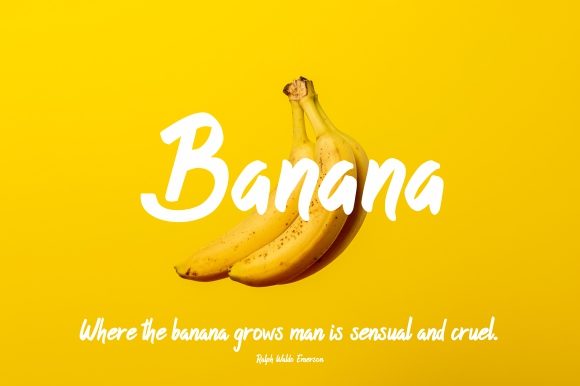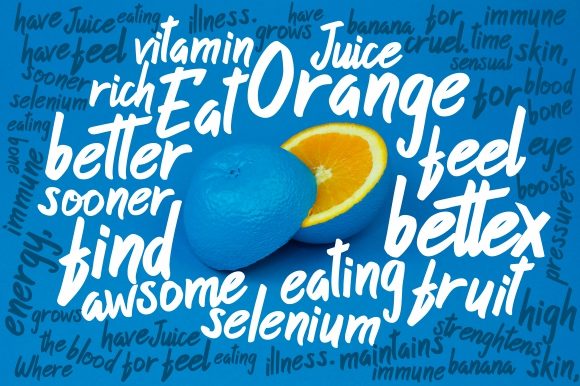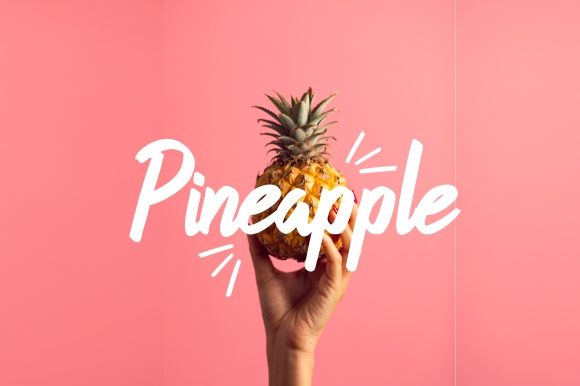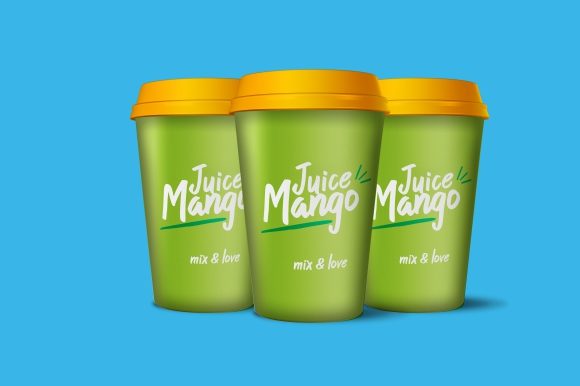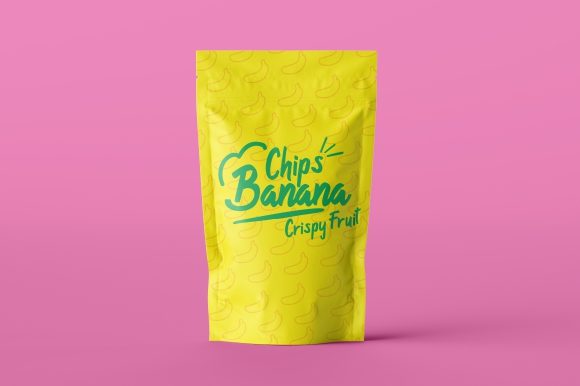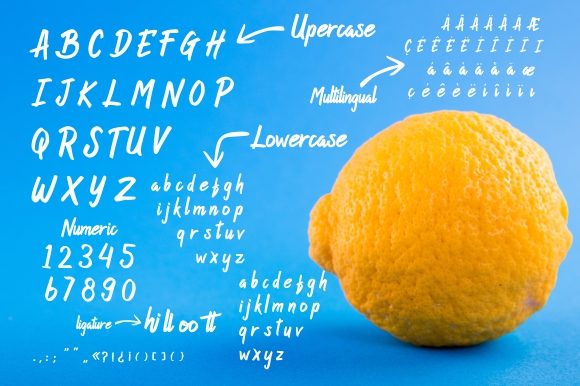
Introducing Butter Pineapple Font: The Fresh and Funky Display Font You Need
Are you tired of using the same old fonts for your creative projects? Look no further than Butter Pineapple Font, a fresh and funky display font that’s sure to make your designs stand out. With its unique blend of authenticity and elegance, this font is perfect for designers and crafters looking to add a touch of charm to their work.
The Story Behind Butter Pineapple Font
Butter Pineapple Font is a carefully crafted font that’s designed to radiate charm and personality. Its creators wanted to create a font that would feel authentic and genuine, yet also elegant and sophisticated. The result is a font that’s perfect for a wide range of creative projects, from branding and advertising to packaging and signage.
What Makes Butter Pineapple Font So Special?
So, what sets Butter Pineapple Font apart from other display fonts on the market? Here are just a few things that make it special:
- Unique Character: Butter Pineapple Font has a unique character that’s all its own. Its letters are carefully crafted to be both playful and elegant, making it perfect for designs that need a touch of whimsy.
- Authentic Feel: This font has an authentic feel that’s hard to find in other display fonts. It’s perfect for designers who want to create designs that feel genuine and true to life.
- Elegant and Sophisticated: Despite its playful nature, Butter Pineapple Font is also elegant and sophisticated. It’s perfect for designs that need a touch of class and refinement.
Uses for Butter Pineapple Font
Butter Pineapple Font is a versatile font that can be used for a wide range of creative projects. Here are just a few ideas to get you started:
- Branding and Advertising: Use Butter Pineapple Font to create eye-catching logos, ads, and marketing materials that will grab attention and leave a lasting impression.
- Packaging and Signage: This font is perfect for packaging and signage that needs to stand out on store shelves or in crowded spaces.
- Digital Media: Use Butter Pineapple Font to create engaging social media graphics, blog posts, and other digital content that will capture your audience’s attention.
Tips for Using Butter Pineapple Font
Here are a few tips for using Butter Pineapple Font in your designs:
- Use it as a Display Font: Butter Pineapple Font is designed to be used as a display font, so use it to create eye-catching headlines and titles.
- Experiment with Colors and Textures: This font looks great in a variety of colors and textures, so don’t be afraid to experiment and find the perfect combination for your design.
- Pair it with Other Fonts: Butter Pineapple Font pairs well with a variety of other fonts, so try pairing it with a simpler font to create visual interest.
| Font Name | Butter Pineapple Font |
| Author | EKNOJI |
Butter Pineapple Font is a fresh and funky display font that’s sure to add a touch of charm to your creative projects. With its unique character, authentic feel, and elegant sophistication, this font is perfect for designers and crafters looking to create standout designs. Whether you’re working on branding and advertising, packaging and signage, or digital media, Butter Pineapple Font is the perfect choice.